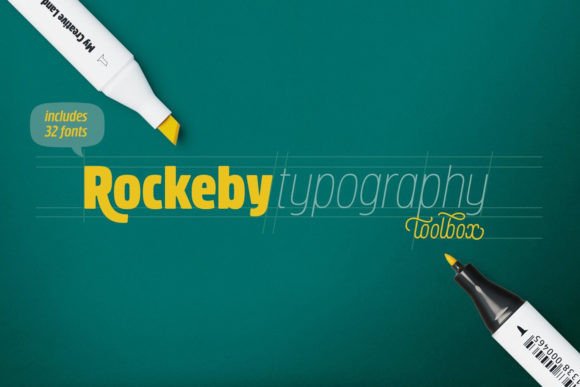
Are you on the hunt for the perfect font for your next interior design project? Look no further than Rockeby Font, the stunning new sans serif family created by My Creative Land.
With a slightly more geometric design than Block Berthold, but with a much softer and more approachable aesthetic than industrial Din Next, Rockeby Font is the perfect choice for designers looking to add character and personality to their work. The unique slightly curved diagonal strokes in letters like A, V, and K give the font family its signature soft look, while stylistic alternates and ligatures add even more personality to your designs.
But that's not all - Rockeby Font also includes two gorgeous scripts that are easy to combine with italics, thanks to their shared italic angle. Contextual alternates, slashes, and ligatures give these scripts even more character and make them an excellent choice for adding a touch of elegance to your designs.
And if you're looking for even more ways to enhance your designs, Rockeby Font also includes a variety of Extras that are sure to make your work stand out. Plus, with PUA encoding, accessing all of the glyphs and swashes is a breeze.